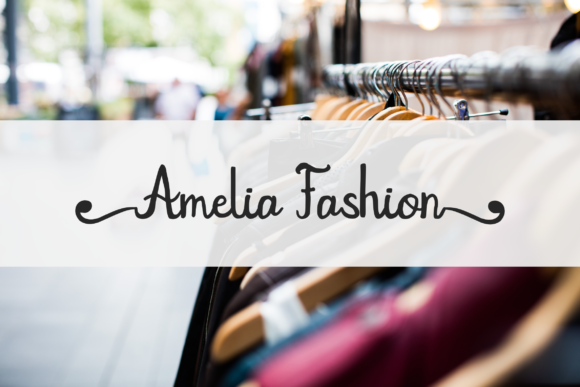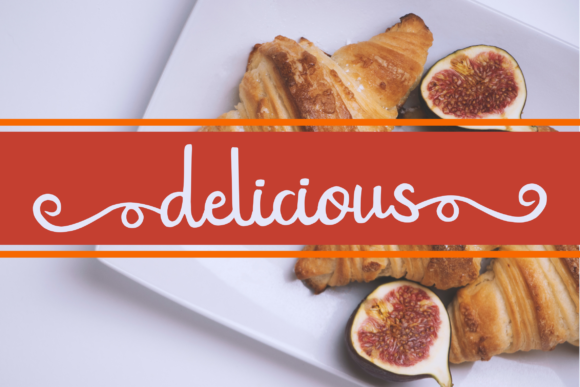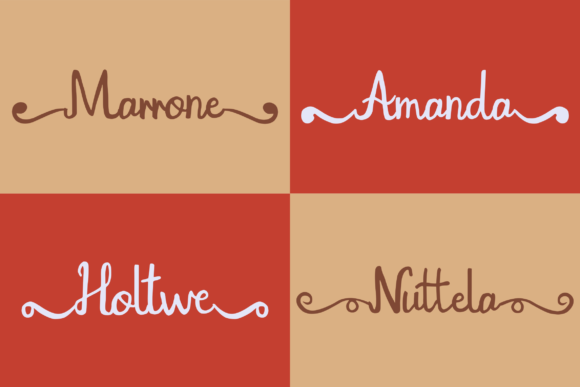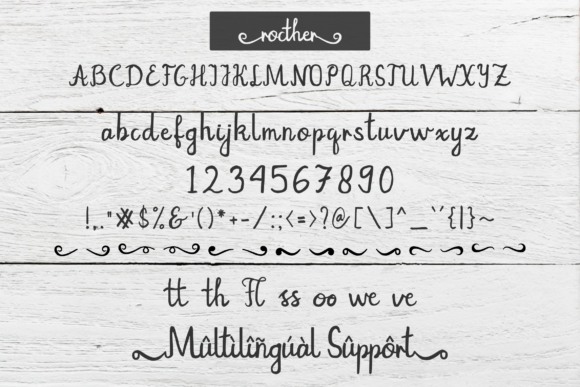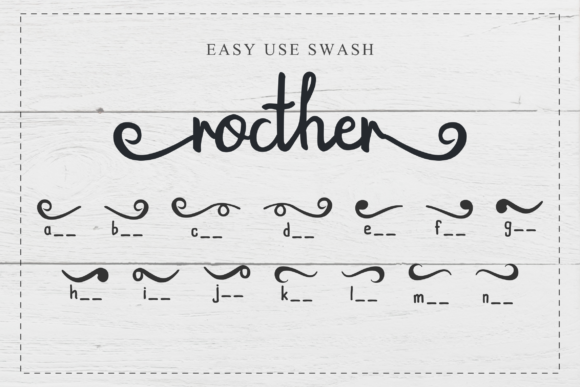
Introduction to Rocther Script Font
As designers, we’ve all been there – staring at a blank page, waiting for inspiration to strike. But what if that spark of creativity comes not from a blank slate, but from the perfect font? For those looking to add a touch of elegance to their designs, the Rocther Script Font is a game-changer. With its medium thickness brush pen aesthetic, this high-quality font is sure to elevate any creative project.
Whether you’re working on a magazine spread, a business card design, or a watermark for a website, the Rocther Script Font is the perfect design resource. Its soft, beautiful elements are ideal for a wide range of applications, from invitations and packaging to t-shirts and more. And the best part? It’s available for free download, making it a valuable addition to any designer’s toolkit.
With its transparent background and versatile design, the Rocther Script Font is a must-have for any creative project. In this article, we’ll dive deeper into the world of this amazing font, exploring its features and benefits, and showing you how to get the most out of it in your designs.
Key Features of Rocther Script Font
- High-quality, elegant script font perfect for creative projects and design resources.
- Comes with a transparent background, allowing for easy customization and seamless integration with any design.
- Features a beautiful, handwritten style with unique flourishes and swashes, making it ideal for invitations, signage, and other creative applications.
- Designed to be highly legible and versatile, with a range of sizes and resolutions available (up to 2048 x 2048 pixels).
- Perfect for designers, artists, and crafters looking for a high-quality, unique font to elevate their creative projects.
Honest Review: Rocther Script Font
I recently stumbled upon the Rocther Script Font, and I must say, it’s a fantastic addition to any designer’s toolkit. This high-quality font is perfect for any creative project that requires a touch of elegance and sophistication.
- ✨ High-quality design: The Rocther Script Font is beautifully crafted, with intricate details that make it stand out from the crowd.
- ✨ Versatility: This font is incredibly versatile, suitable for a wide range of applications, from branding and advertising to publishing and design.
- ✨ Transparent background: The font’s transparent background makes it easy to work with, allowing you to customize and combine it with other design elements seamlessly.
However, I do have a few reservations:
- ⚠️ Limited font weights: While the font is beautiful, it’s limited to a few weights, which might not be suitable for all design projects.
- ⚠️ No italics or obliques: Unfortunately, the Rocther Script Font doesn’t come with italics or obliques, which might be a limitation for designers who need to create emphasis or create a sense of movement.
Overall, I’m impressed with the Rocther Script Font, and I would highly recommend it to designers looking for a high-quality, free font for their next project.
How to Use Rocther Script Font
Introduction to Rocther Script Font
The Rocther Script Font is a high-quality, elegant script font ideal for creative projects that require a touch of sophistication and refinement. This versatile font can be used as a design resource for various purposes, from branding to editorial content.
Tips for Getting the Most Out of Rocther Script Font
To maximize the impact of Rocther Script Font, use it sparingly and thoughtfully. Combine it with other fonts to create visual balance and harmony. Experiment with different font sizes, colors, and arrangements to achieve the desired effect.
Common Use Cases for Rocther Script Font
The Rocther Script Font is particularly useful for:
- Editorial content and publications
- Event signage and promotional materials